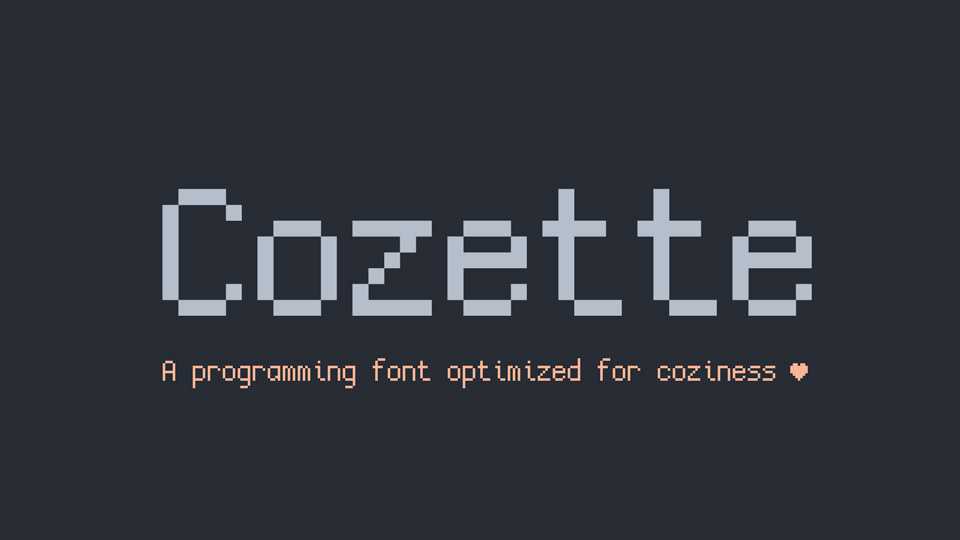
Download Cozette font, a bitmap programming typeface optimized for coziness. Cozette is is distributed in two main variants: bitmap and vector for all types of applications.
Designer: Slavfox